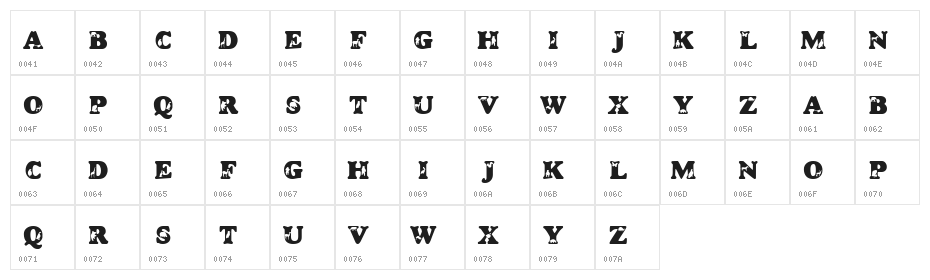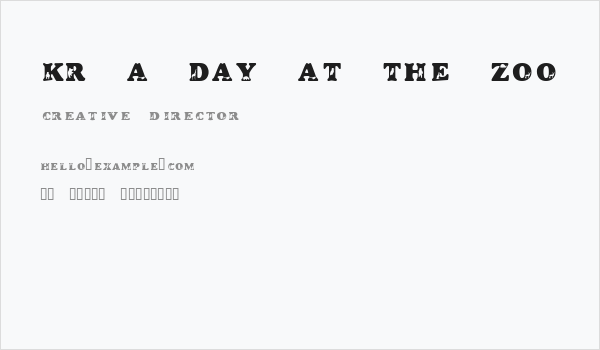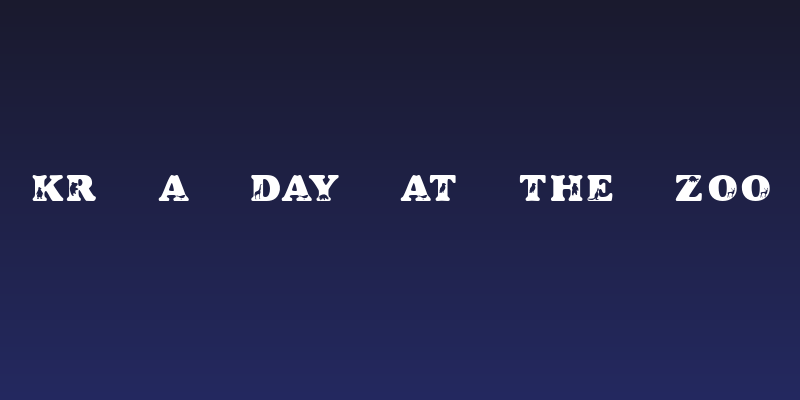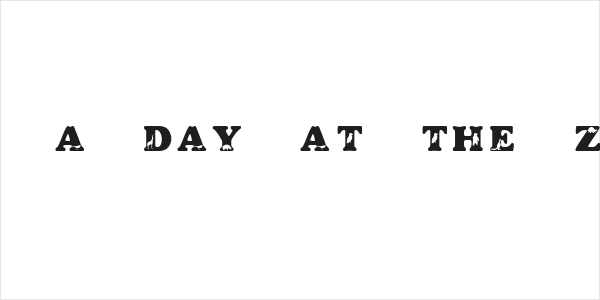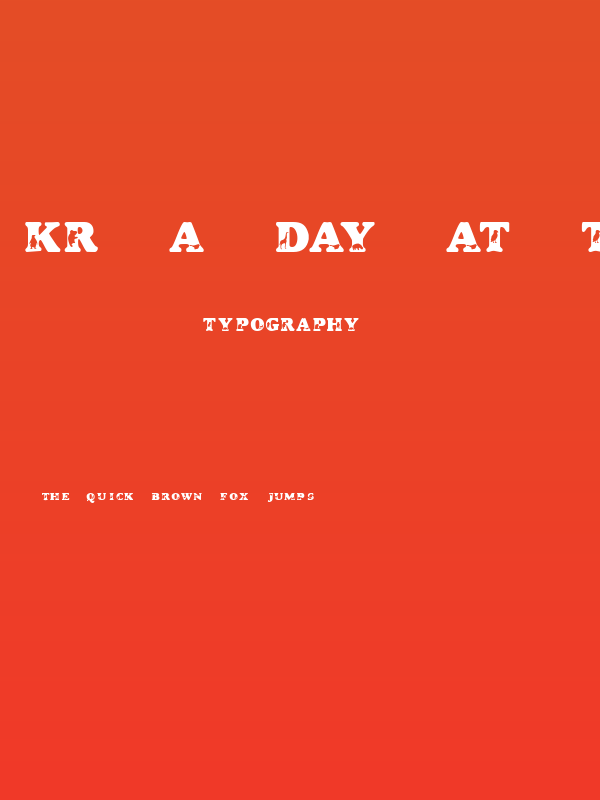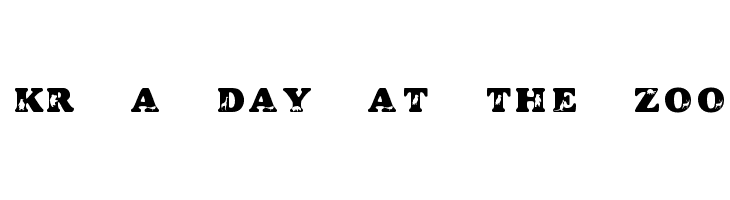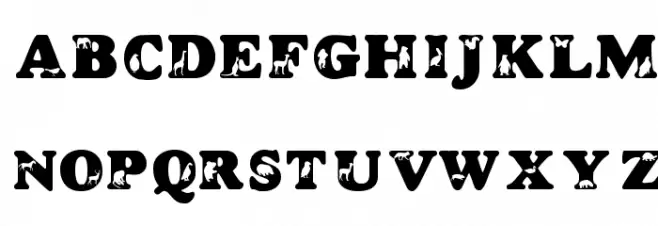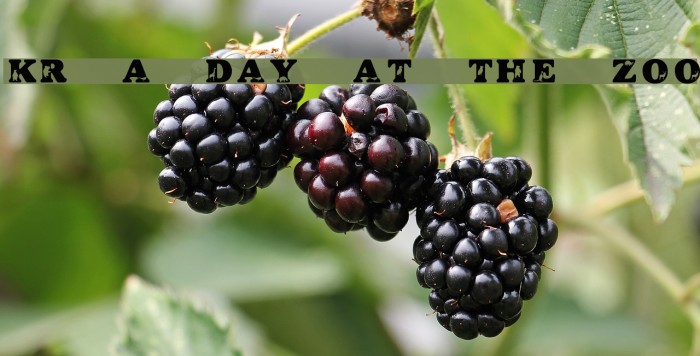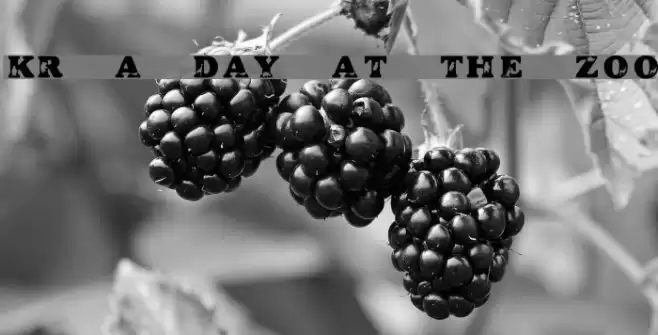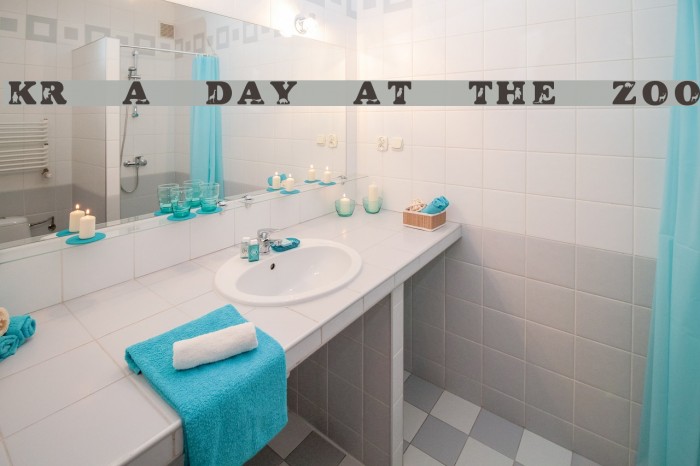
KR A Day At The Zoo Font
KR A Day At The Zoo Description
This playful and decorative font features bold, uppercase letters with whimsical animal silhouettes integrated into each character. The design is reminiscent of a day at the zoo, with various animals like elephants, giraffes, and lions cleverly incorporated into the letterforms. The font has a strong visual impact, making it ideal for projects that require a fun and engaging aesthetic. The bold weight and high contrast between the thick strokes and the playful animal cutouts create a dynamic and eye-catching appearance. The character spacing is normal, allowing for easy readability despite the intricate details within each letter.
| Overall Style | Playful, Decorative |
| Use Case | Headlines, Posters, Children's materials |
| Proposed Projects | Ideal for children's books, zoo-themed events, playful posters, and educational materials. |